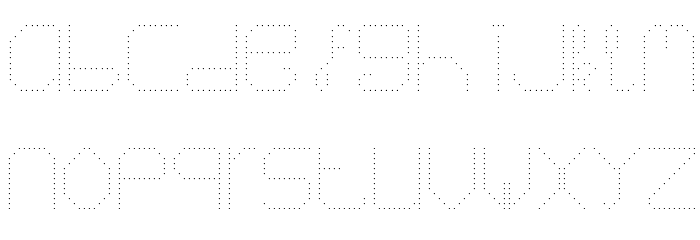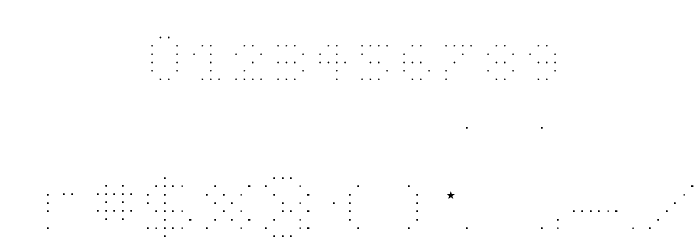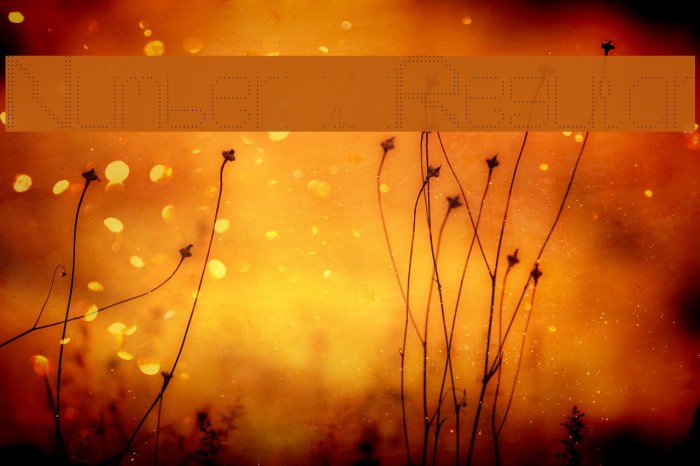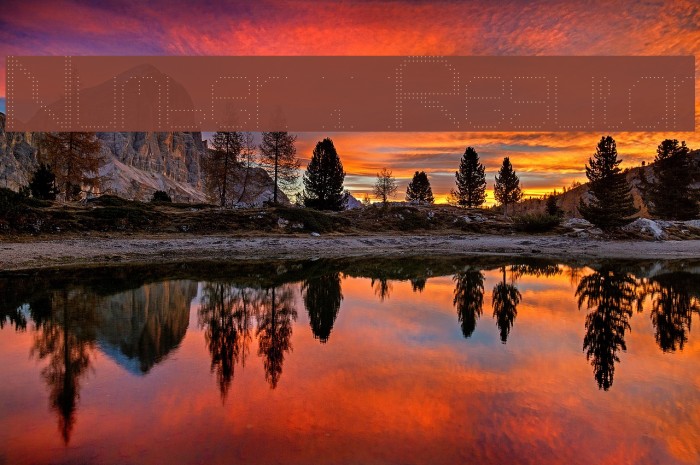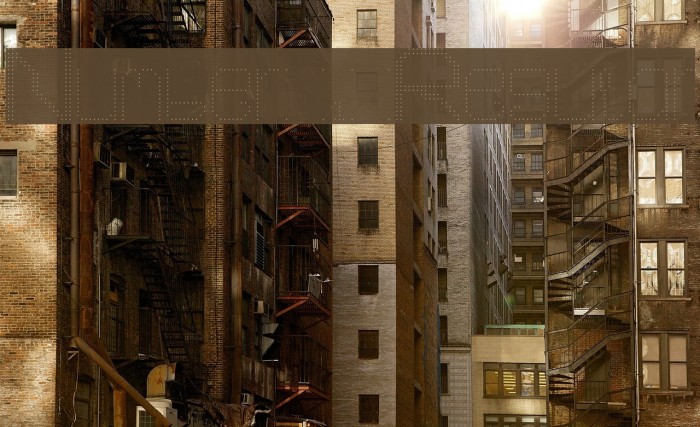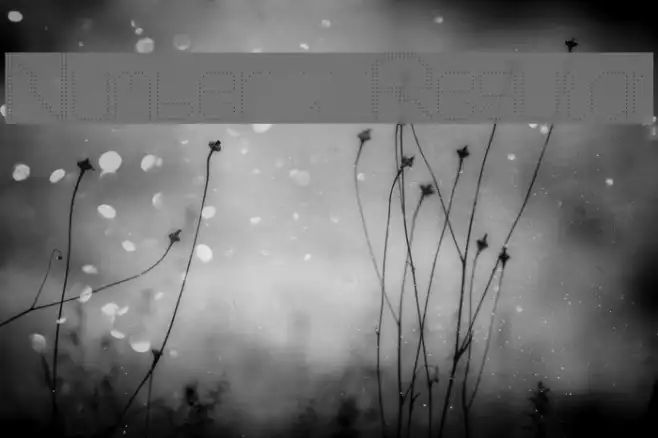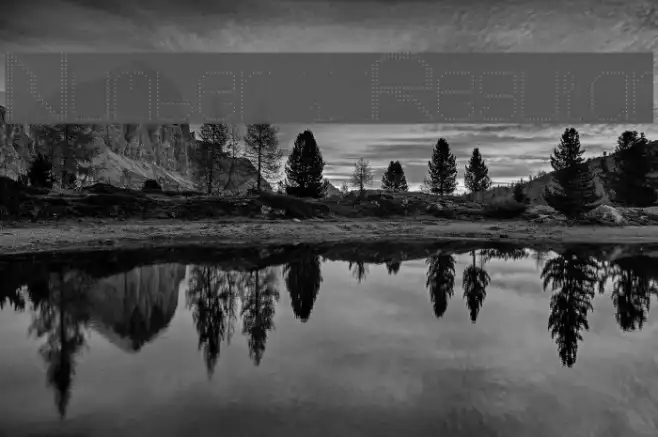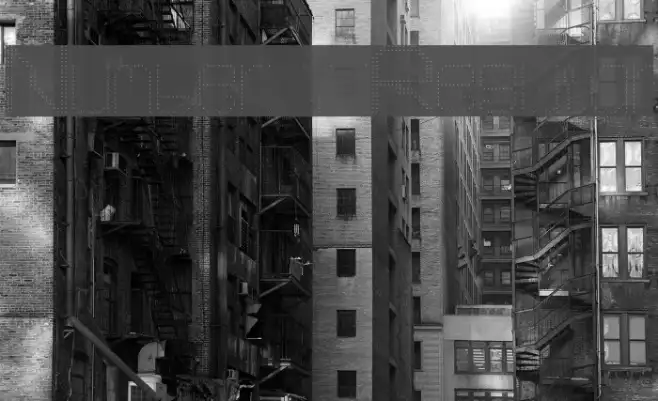
Number 1 Regular Font
This font features a unique dot matrix design, creating characters through a series of evenly spaced dots. The style is reminiscent of digital displays or old-school dot matrix printers, giving it a retro, tech-inspired look. Each character is formed with precision, maintaining uniformity across both uppercase and lowercase letters. The numbers and special characters follow the same dot pattern, ensuring consistency throughout. This font's distinct appearance makes it stand out, ideal for projects that require a digital or vintage aesthetic.
A dot matrix style font with a retro digital display vibe.
- Proposed Projects: Ideal for digital displays, retro-themed designs, tech-related branding, or any project seeking a vintage digital aesthetic.
- Overall Style: Vintage
- Use Case: Headlines, Logos, Digital displays